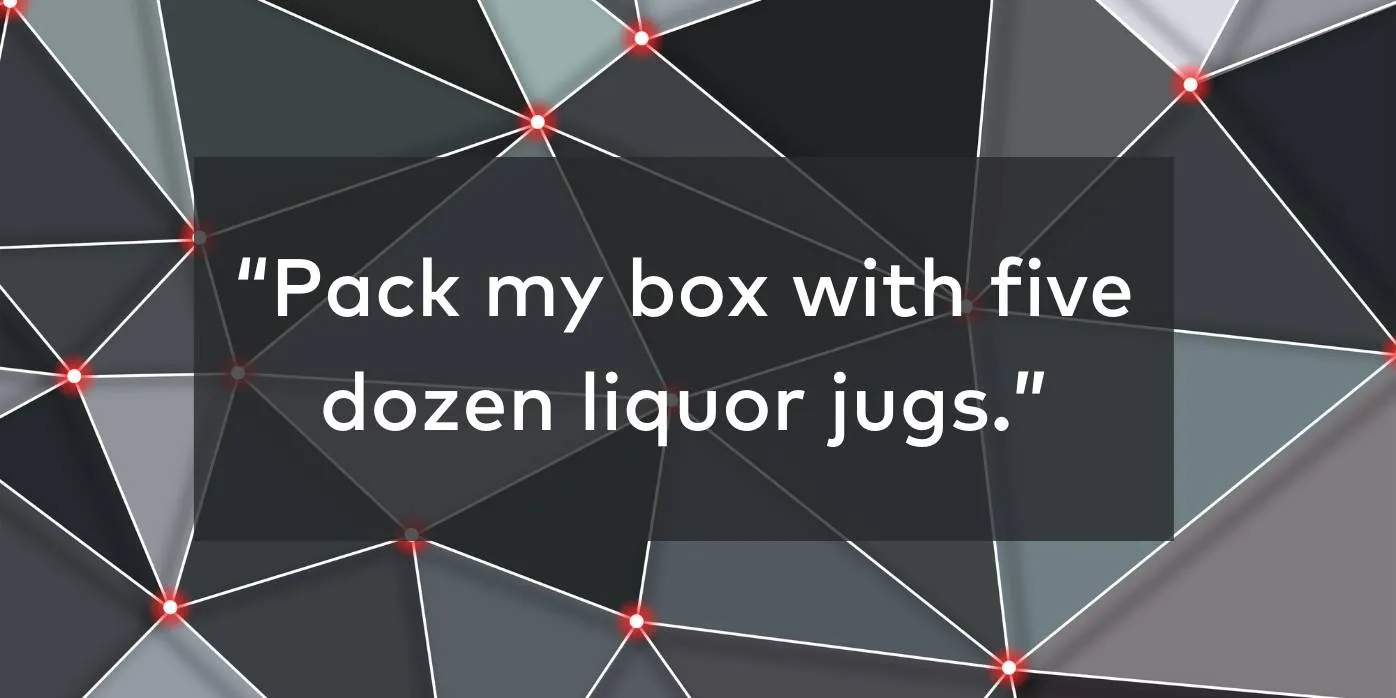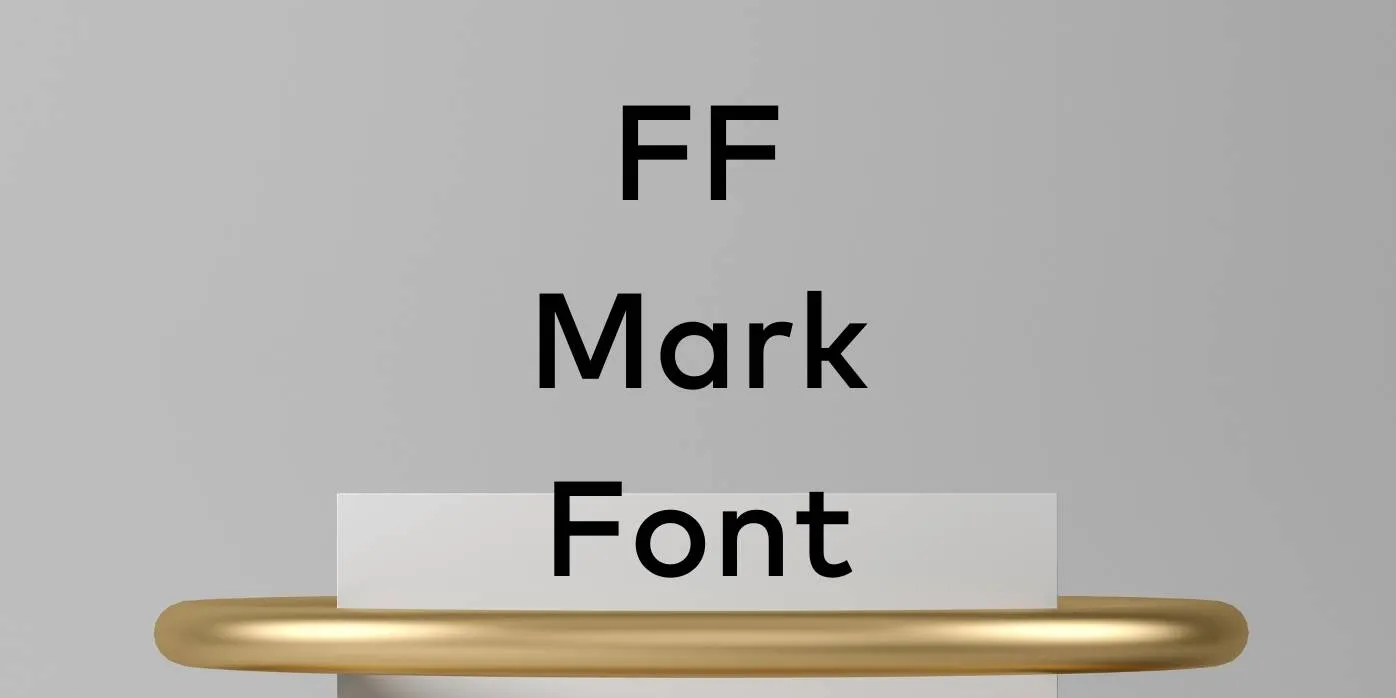
FF Mark Font
FF Mark Font is developed and published by two famous designers Hannes von Döhren and Christoph Koeberlin. This classic typeface belongs to the Sans-Serif typeface. This marvelous font is a very versatile font that is perfect for different purposes. Its clean and simple style makes it perfect for many designs.
It comes with a wide range of OpenType features that allow you to create different designs. This typeface comes in six weights and each weight has its own unique character. Knockout Font is similar to this popular font family. This typeface is perfect for both headlines and body text.
The space between its characters is also very consistent, making it perfect for legibility. This typeface is available in both Latin and Cyrillic scripts. This tremendous font family is best for Adobe. Its copy and paste function is amazing.